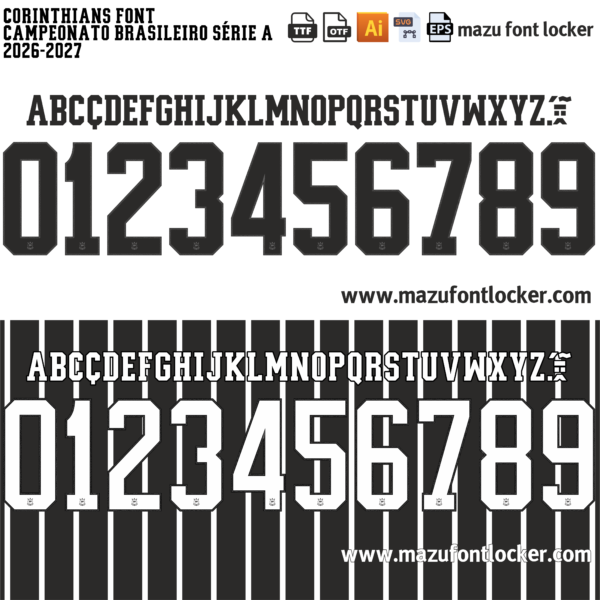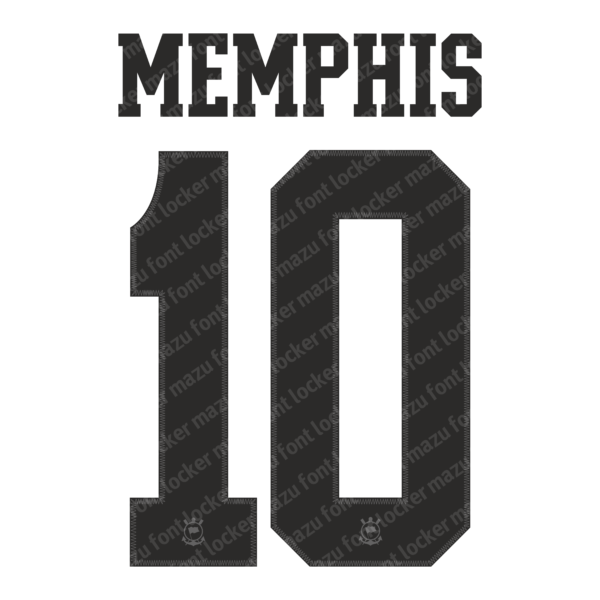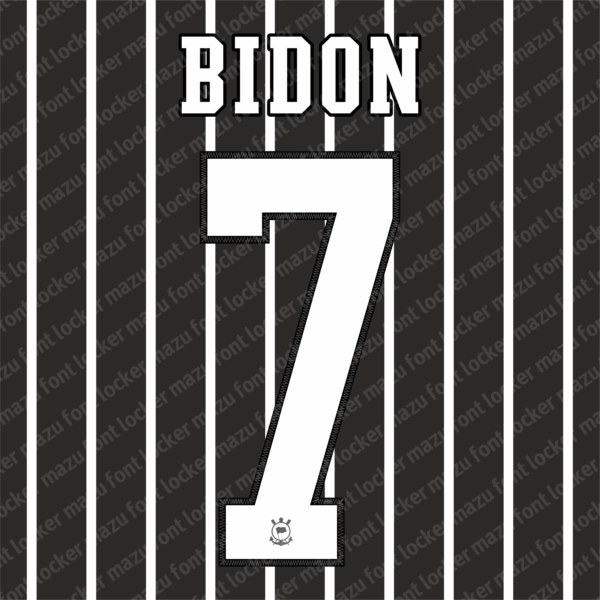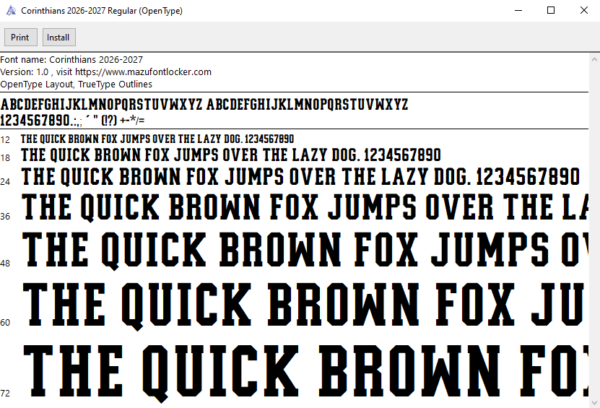
Corinthians 2026-2027 Font Vector – Premium Authentic Jersey Style for True Football Fans
Corinthians 2026-2027 font is a premium football jersey lettering vector inspired by the official squad typography used during the 2026/27 season. Designed with precision and accuracy, this font pack is perfect for football designers, jersey custom creators, sportswear printers, and passionate supporters who want professional-quality results. Every number and letter in the Corinthians 2026-2027 font has been carefully recreated to deliver an authentic match-ready appearance for your creative projects.
🔥 Corinthians 2026-2027 Font Features
- Authentic 2026-2027 Corinthians jersey lettering style
The authentic lettering style helps recreate the classic look of the Corinthians 2026-2027 kit with professional accuracy.
Unlike generic jersey fonts, this set is designed with a strong focus on authenticity and accuracy. Every detail is based on the original match lettering style used during the 2026-2027, helping designers and collectors create realistic football shirt designs.
This Corinthians 2026-2027 font vector set is designed for authentic football jersey customization and works perfectly for retro football projects, collector designs, and professional sportswear artwork.